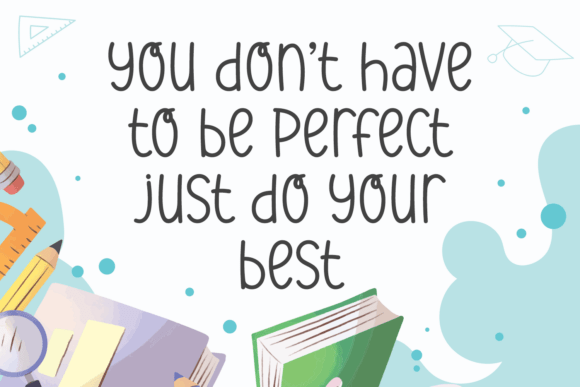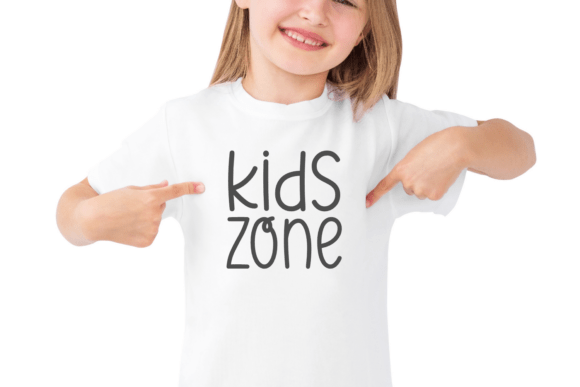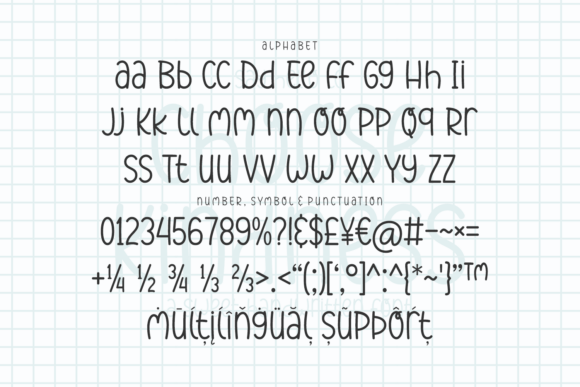
Introduction to Choose Kindness Font Font
Fonts play a crucial role in design, and the Choose Kindness Font font is a typeface that brings both character and versatility to any project. Whether you’re working on a branding project, a website, or a print design, the Choose Kindness Font font offers a unique style that can elevate your work.
Choose Kindness is a sweet and friendly handwritten font.
Key Features of Choose Kindness Font Font
Why Choose Choose Kindness Font Font?
The Choose Kindness Font font is more than just a typeface – it’s a design tool that helps you communicate your message with style and clarity. Its unique character set and versatile design make it suitable for a wide range of applications, from elegant invitations to bold headlines.
With its carefully crafted letterforms and balanced proportions, the Choose Kindness Font font ensures readability and visual appeal across all mediums.
What makes Choose Kindness Font font special?
The Choose Kindness Font font stands out with its unique design, exceptional readability, and versatility across various design applications.